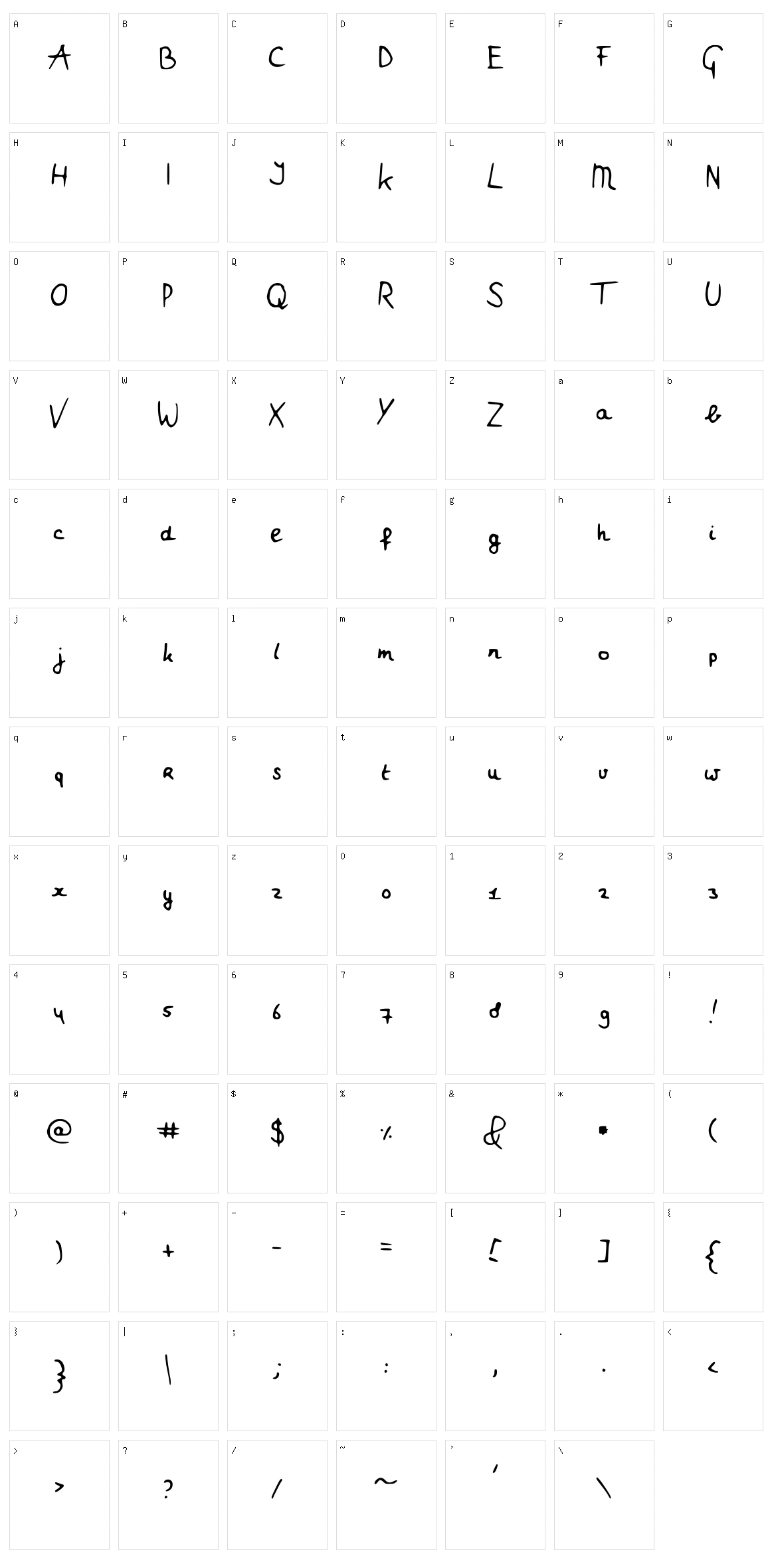
The free font Myrthe is carefully designed by Myrthe Stortelers, showcasing a thoughtful balance of creativity and usability and falls under the Script font style. When you download the ZIP file, it contains only 15.97 KB of font files, making it lightweight and quick to download. Please review the license details below to understand permitted usage and distribution rights. If license information is not available, we recommend using this font for personal projects only or contacting the author directly for commercial usage permissions.